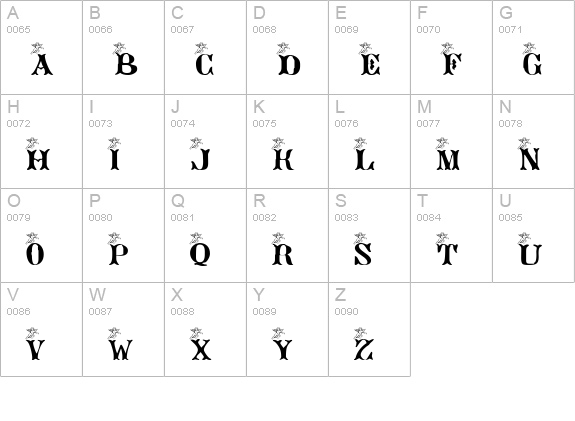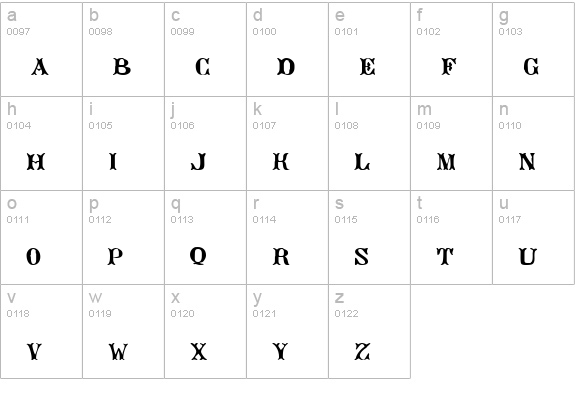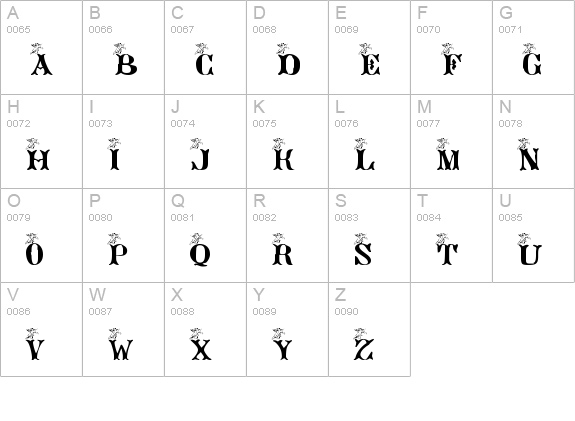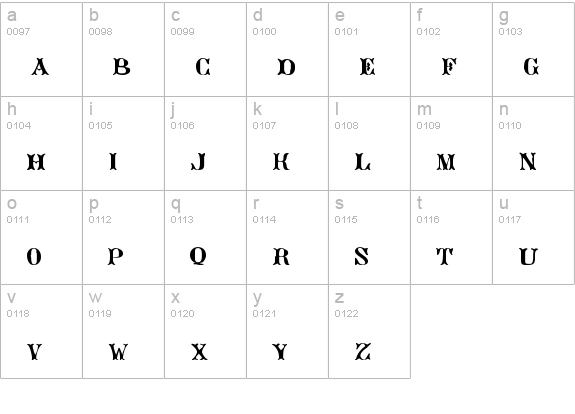
AngeGardien Font Details
AngeGardien font embodies a harmonious blend of elegance and modernity, making it a versatile choice for a wide range of design projects. This typeface features graceful curves and sleek lines that exude a sense of sophistication and refinement. With its clean and contemporary aesthetic, AngeGardien font is perfect for creating eye-catching headlines, stylish logos, and elegant branding materials. What sets AngeGardien font apart is not only its aesthetic appeal but also its accessibility. This stunning typeface is available for free download at FontsMarket.com, allowing designers and creatives to easily incorporate its timeless charm into their work. Whether you're designing a website, crafting a print advertisement, or creating social media graphics, AngeGardien font offers a touch of class that elevates any project to new heights. Embrace the beauty and versatility of AngeGardien font in your designs today, and let its timeless elegance speak volumes for your creativity and professionalism. Download this exquisite typeface for free at FontsMarket.com and unlock a world of design possibilities.